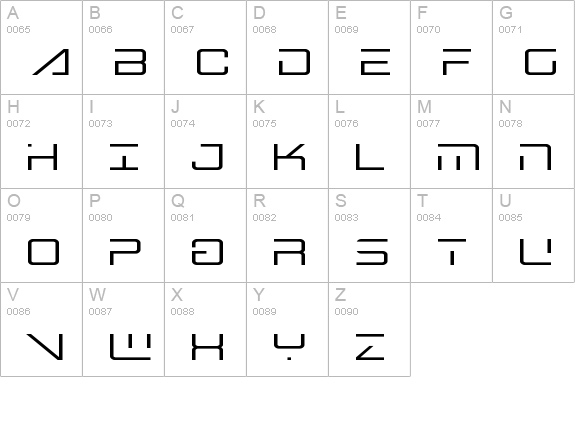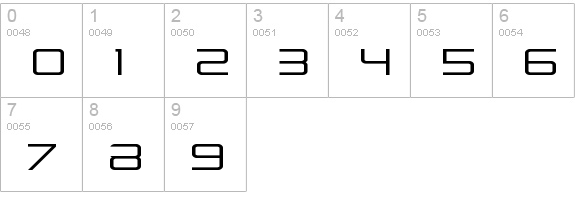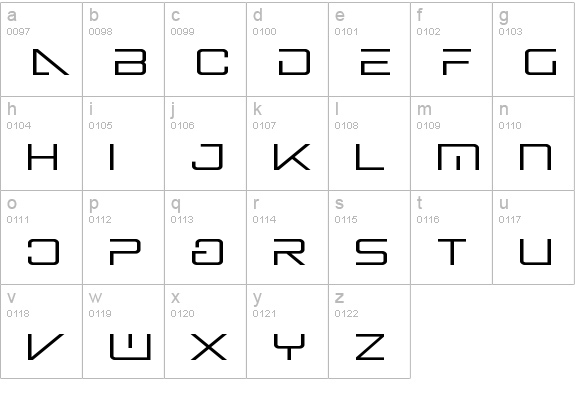
Banshee Pilot is a donationware font in the Modern > Sci-Fi category, designed by Iconian. It has been downloaded 146 times and is available for Windows, Mac and Linux.
Introducing the captivating Banshee Pilot font, a dynamic typeface that exudes power and energy. With its sleek lines and bold strokes, this font is perfect for projects that demand attention and impact. The Banshee Pilot font is versatile and can be used for a wide range of design applications, from logos to headlines to posters.
What sets Banshee Pilot apart is its unique blend of modernity and sophistication, making it a standout choice for anyone looking to make a statement with their typography. The font's sharp angles and edgy aesthetic give it a futuristic feel, while its clean lines ensure readability and clarity.